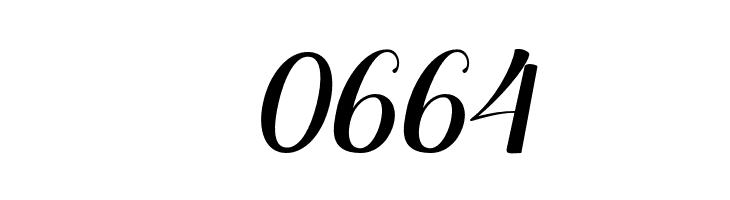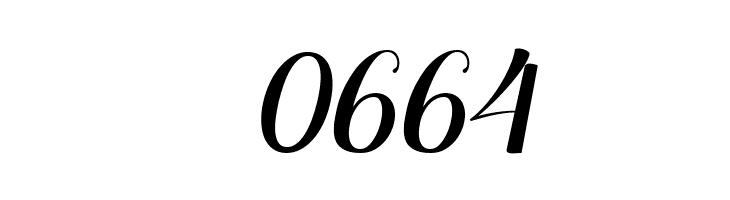
( The Auratype is retro and classic typeface who inspired by the 60s - 80s designs with more unique explored style like swosh and alternate character. This font made from manual sketch with many many scratch then finished to font. Make your designs project )